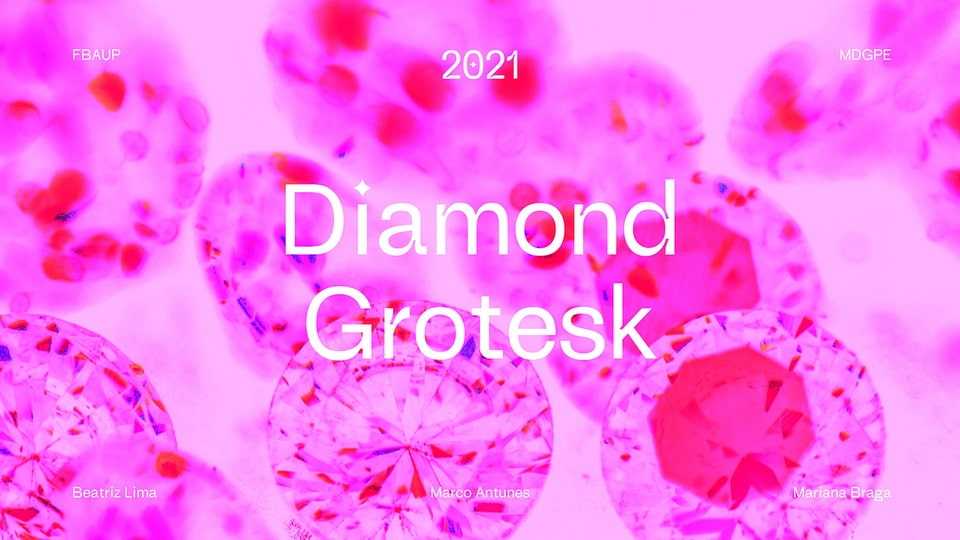
Download Diamond Grotesk font, a sophisticated and modern typeface inspired by the timeless Akzidenz-Grotesk, but reimagined with a contemporary twist.